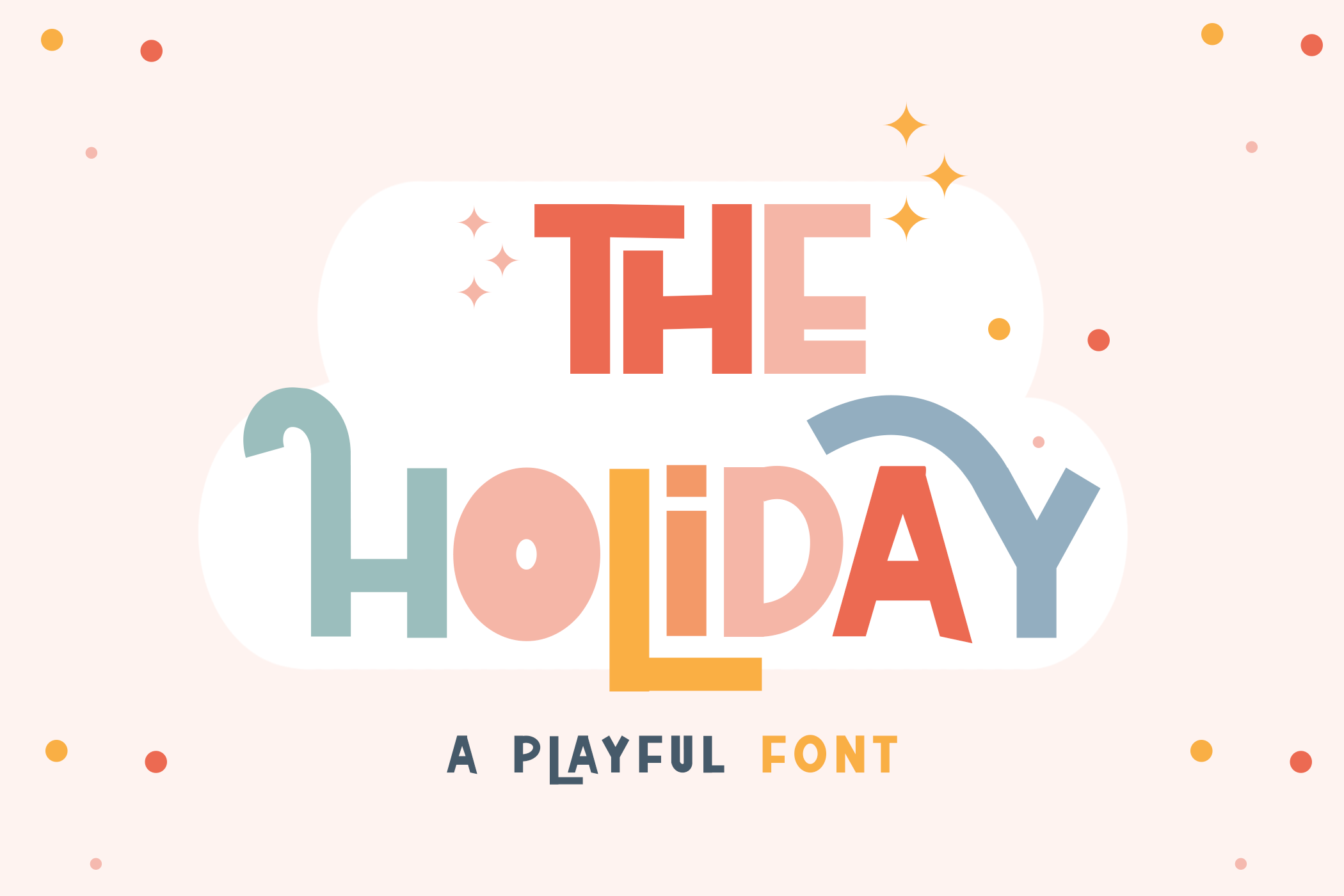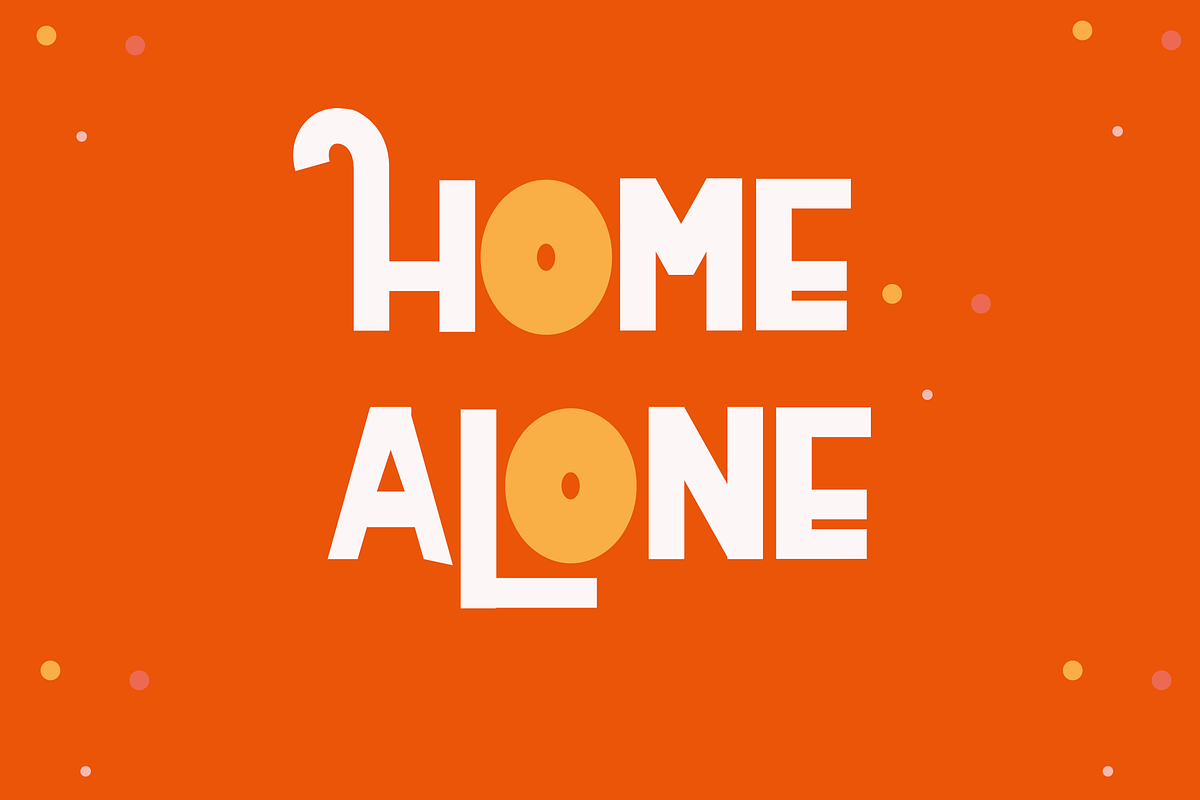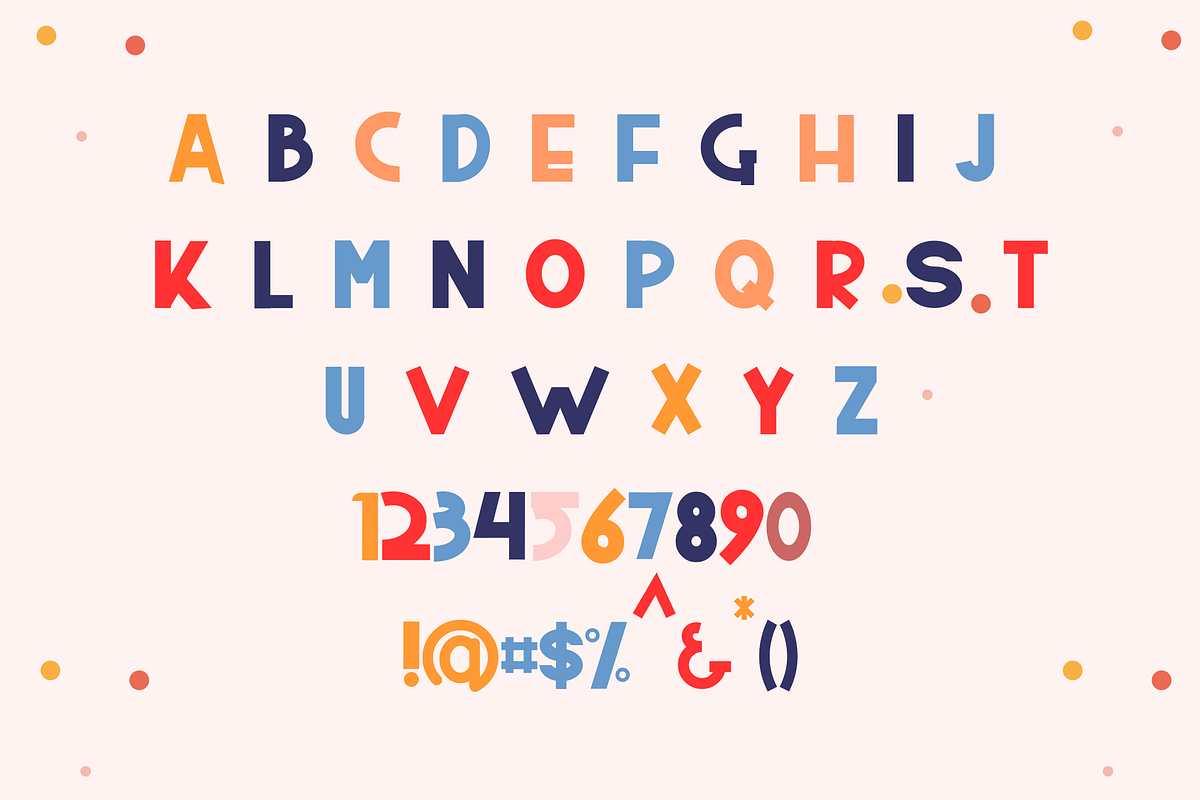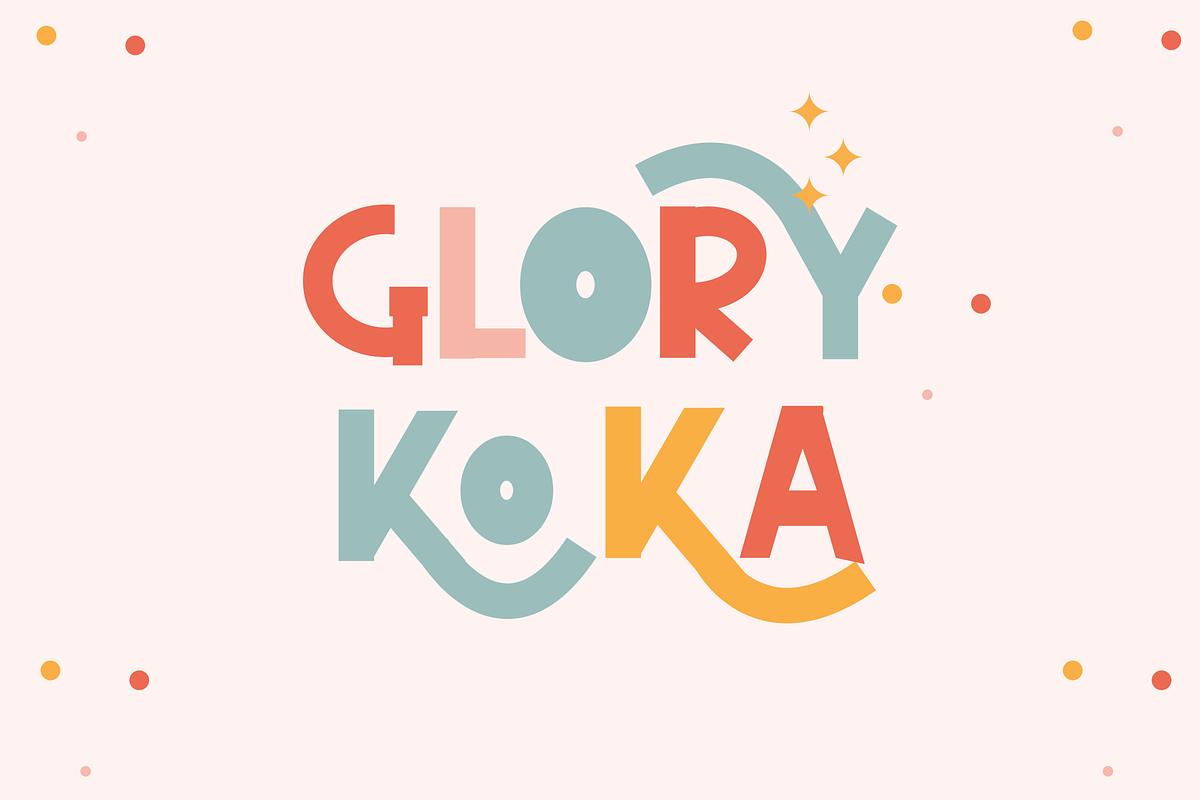
The Holiday Font
The Holiday is a cool, bold and thick lettered display font. It is PUA encoded which means you can access all of the amazing glyphs and ligatures with ease! Use this font for your designs and explore its endless possibilities.